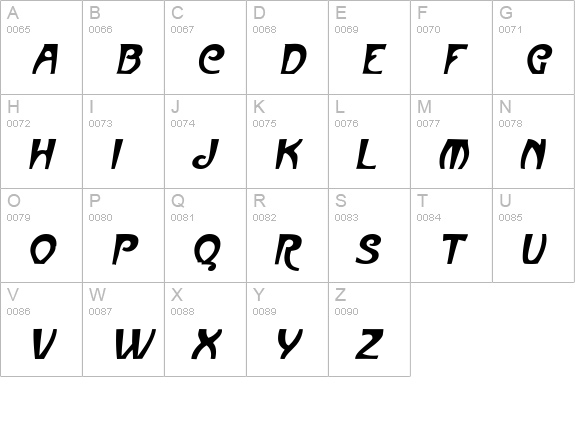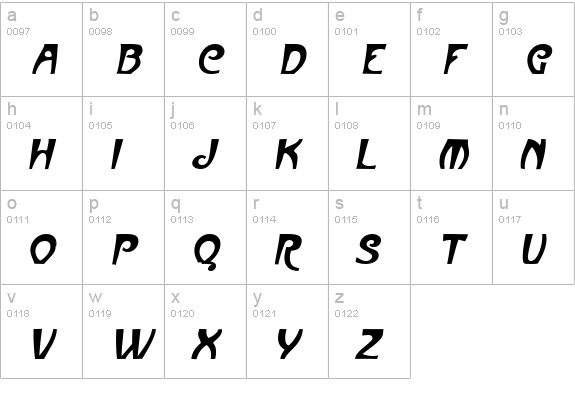
MullinsCaps Italic Font Details
MullinsCaps Italic is a distinctive, italic variant in the MullinsCaps typeface family \xE2\x80\x94 well suited to design and typography projects.
MullinsCaps Italic font is a stylish and sophisticated typeface that exudes elegance and charm. With its sleek and modern design, this font is perfect for adding a touch of class to any project. The flowing italic style of MullinsCaps Italic lends a sense of movement and fluidity to your text, making it a standout choice for headings, titles, and branding materials. But the best part? MullinsCaps Italic font is completely free to download at FontsMarket.com! That's right, you can add this stunning font to your collection without spending a dime. Don't miss out on the opportunity to elevate your designs with MullinsCaps Italic - download it today and bring a touch of sophistication to your next project.